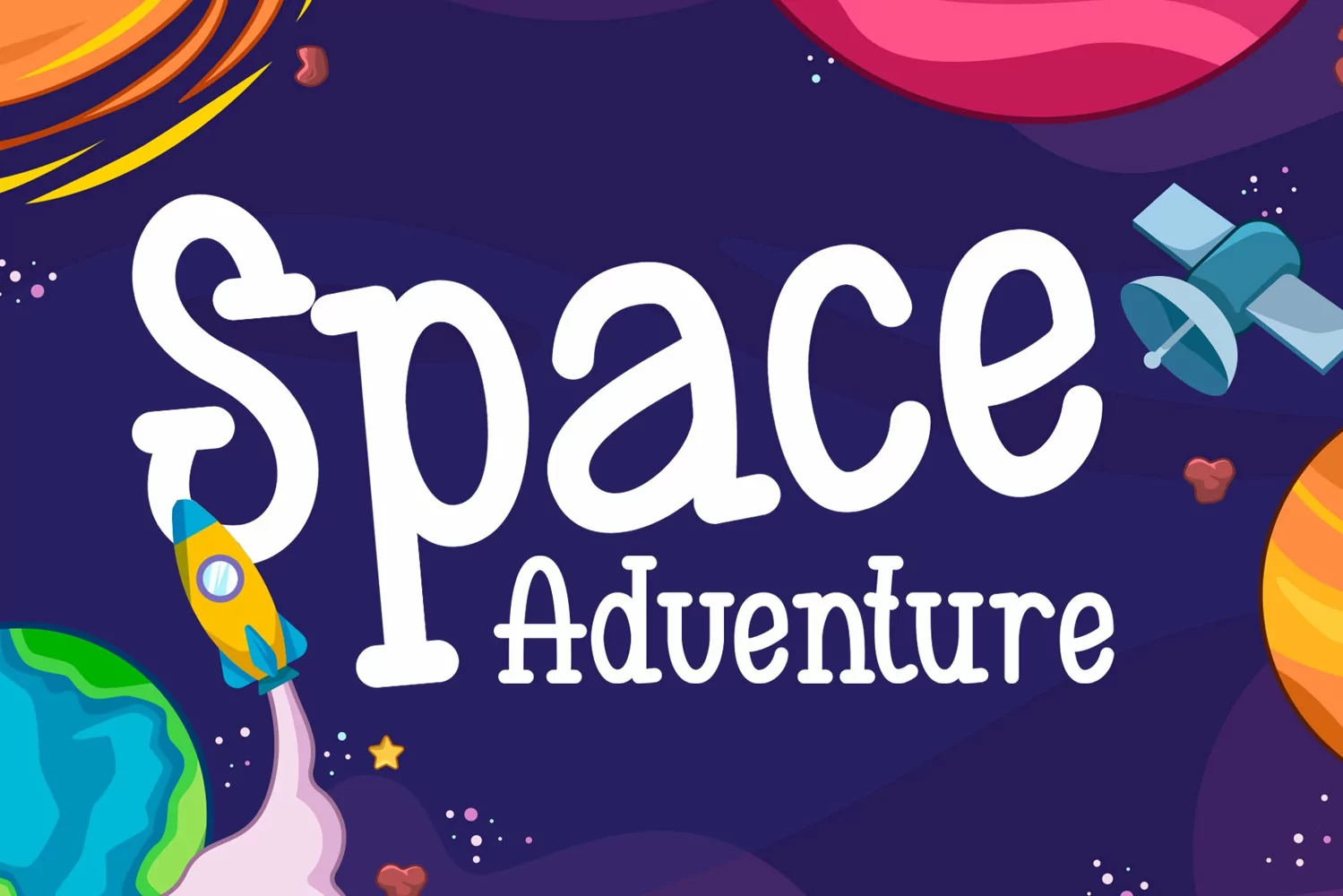
Rilley Hwick
Rilley Hwick is a decorative font that was inspired by lettering design that i saw on instagram, and it was crafted by hand to add a natural handmade feeling and i make it clean with pentool.
If you looking for decorative font that have a unique style for your title or even branding and logotype, Rilley Hwick is a great choice for that purpose.
Opentype featuresRilley Hwick font is very good looking in logotype, labels, decorative lettering, playful design, product packaging, invitation titled, advertising and others.